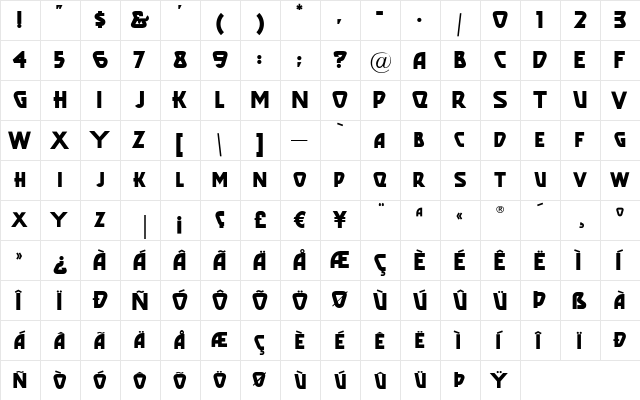
PopularCafeAA Regular
Design Context for PopularCafeAA Typeface
PopularCafeAA takes a measured approach to typography — its balanced proportions and neutral character make it a reliable workhorse for both digital and print work.